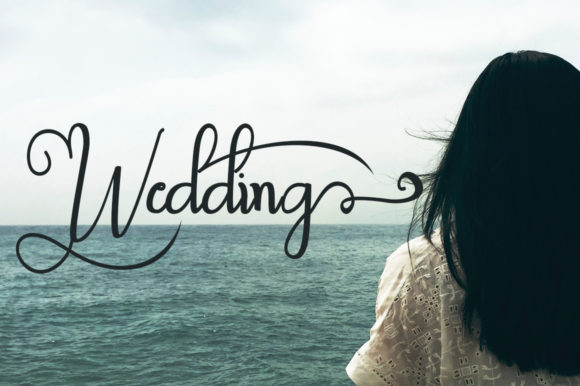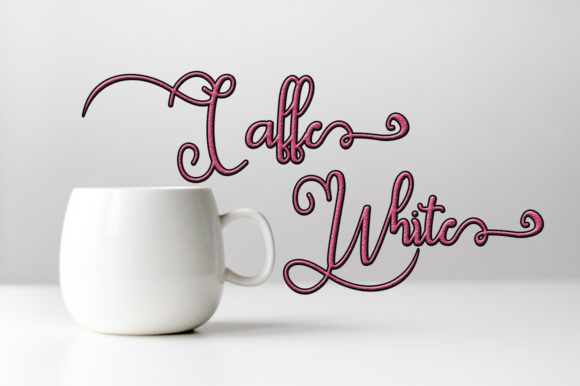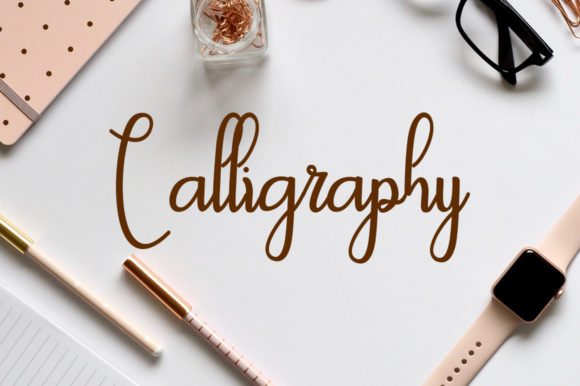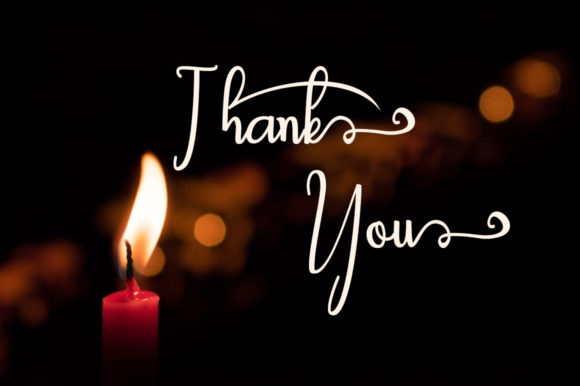
Unleashing the Beauty of Bubayang Font
There’s something magical about scribbling down your thoughts in a journal, the sound of the pen gliding across the paper, and the way the words seem to dance together. It’s a feeling that’s hard to replicate, but for designers, the Bubayang Font comes close. Inspired by classic calligraphy, this stunning romantic handwritten script is a game-changer for any project that needs a touch of elegance.
As a designer, you know the importance of choosing the right font to convey your message. That’s where the Bubayang Font shines. With its light feel and beautiful curves, it adds a romantic touch to any design, making it perfect for wedding invitations, love letters, or even a special birthday message. Whether you’re a seasoned designer or just starting out, the Bubayang Font is a valuable addition to your toolkit.
- Unique Characteristics: This font features a unique blend of modern and traditional design elements, with intricate details and ornaments that set it apart from other fonts in its category.
Bubayang Font Review
As a designer, I’ve had the chance to work with a wide range of fonts, and the Bubayang Font is definitely one of the more interesting ones I’ve come across.
- The unique combination of modern and traditional elements in the font’s design makes it stand out from more common fonts.
- The font’s versatility allows it to be used in a variety of contexts, from digital displays to print materials.
- The font’s curves and lines are well-balanced, making it easy to read even in smaller font sizes.
- The font may not be suitable for all types of content, particularly those that require a more formal or traditional tone.
- The font’s unique design may not be to everyone’s taste, and some users may find it difficult to read or understand.
- The font’s availability in different weights and styles may be limited, which could make it difficult to create a consistent look and feel.
Overall, the Bubayang Font is a unique and versatile option that can add some personality to a design project. While it may not be suitable for all types of content, it’s definitely worth considering for projects that require a modern and creative touch.
Tips for Getting the Most Out of Bubayang Font
The Bubayang font is ideal for creating unique and eye-catching designs. Here are some tips to get the most out of it:
- Use it for headings and titles to add a touch of elegance.
- Pair it with other fonts to create a unique and harmonious design.
The Bubayang font is suitable for a variety of designs, including:
- Editorial and